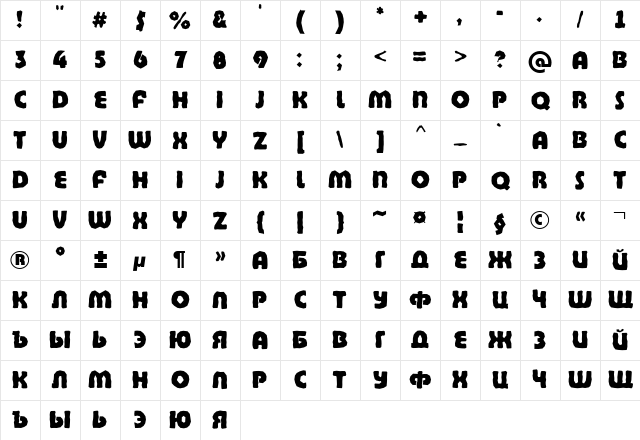
Complete a_BighausTitulBrk ExtraBold glyph index. Displaying only characters natively supported by a_BighausTitulBrk ExtraBold font.
a_BighausTitulBrk is a composed and adaptable typeface that performs quietly and consistently across a wide range of design contexts. Its bold stroke weight gives it real presence on the page.